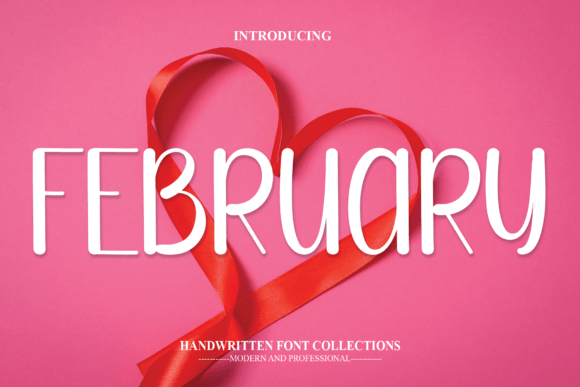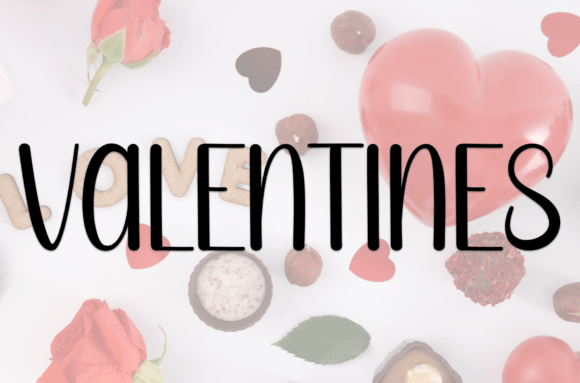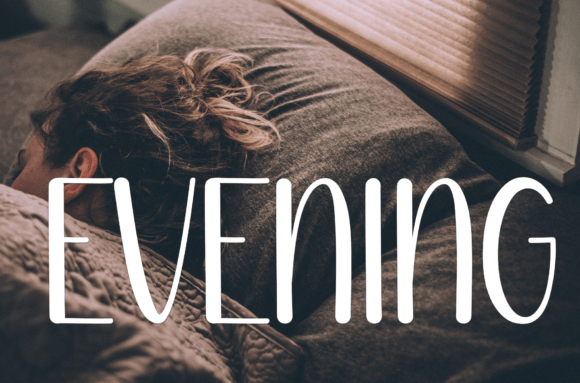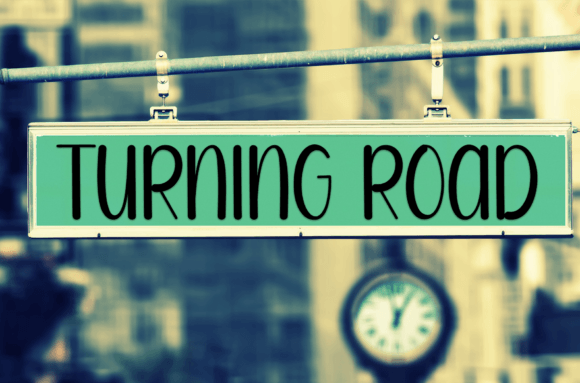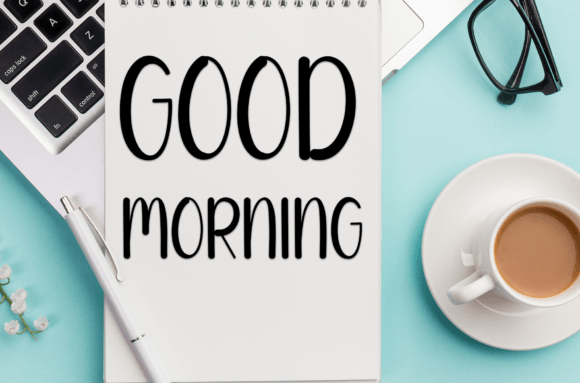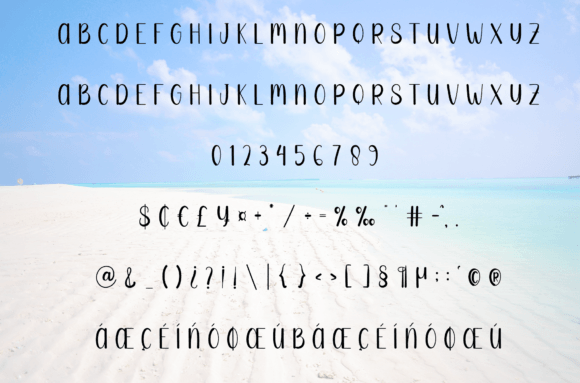
About February Font
February is a sweet and friendly handwritten font that radiates warmth and charm. With smooth curves and a relaxed style, this font adds a personal touch to any design project. Whether you are creating wedding invitations, greeting cards, or social media graphics, February will make every word feel special and heartfelt.
A Soft Handwritten Look
The beauty of February lies in its delicate strokes and playful flow. Each letter feels as if it was drawn by hand with care and joy. This natural, authentic feel helps your designs stand out while still feeling approachable and sincere.
When you want to create something that feels genuine, February is the perfect font. It brings a sense of softness that instantly warms up any project.
Perfect for Any Occasion
February is versatile and works well in many design scenarios:
Wedding Invitations: Add a romantic, handwritten touch to your invitations and save-the-date cards.
Greeting Cards: Make your birthday, holiday, and thank-you cards feel warm and personal.
Quotes and Wall Art: Share inspiring messages with a lovely handwritten style.
Social Media Posts: Design friendly and eye-catching graphics for Instagram, Facebook, and Pinterest.
Event Signage: Bring elegance to weddings, showers, and other celebrations.
Branding Materials: Use February for logos, packaging, and stationery to create a soft, welcoming brand image.
No matter the occasion, February makes your message feel genuine and beautiful.
Easy to Use for Beginners and Pros
Design Tips for February Font
Here are a few ideas to help you get the most from this font:
Pair It With a Sans Serif: Create balance by using February for headlines and a clean sans serif for body text.
Use Soft Colors: Pastel shades, creams, and neutrals enhance the warm, relaxed feel of the font.
Include Decorative Elements: Small hearts, stars, or floral icons work beautifully with February’s sweet style.
Mind Your Spacing: Generous line spacing keeps the design airy and readable.
With just a few thoughtful touches, you can elevate your project to look polished and professional.
Why Designers Love February
February is more than just a handwritten font—it’s a way to create designs that feel joyful and heartfelt. Its smooth, flowing letters bring a sense of playfulness and warmth to any project.
When you use February, you show your audience that you care about the details. Whether you are designing for personal use or professional branding, this font will help your message connect and inspire.
Bring your creative ideas to life with the sweet, relaxed style of February Font. Let it add a lovely touch to every design you create.